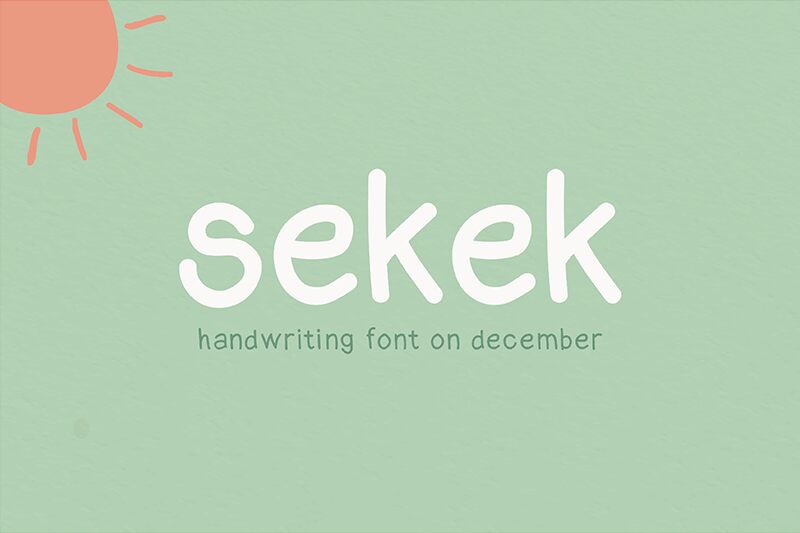
Sekek Regular
Sekek font by Gholib Tammami is a free handwritten typeface that hits that sweet spot between playful and clean. Its rounded strokes feel like they were drawn with a soft marker, yet the letters stay steady and evenly spaced, so your message doesn’t get lost in the charm. The subtle wobble in each curve adds warmth and personality without turning messy or chaotic.
Using Sekek, you can give a human touch to logos, children’s branding, packaging, quote graphics, social media posts, invitations, and friendly app interfaces. This free font holds up well at medium sizes, where its inky, slightly chunky lines stay crisp and welcoming. Pair Sekek with a simple geometric sans serif for body text to keep things readable while letting the handwritten voice lead.